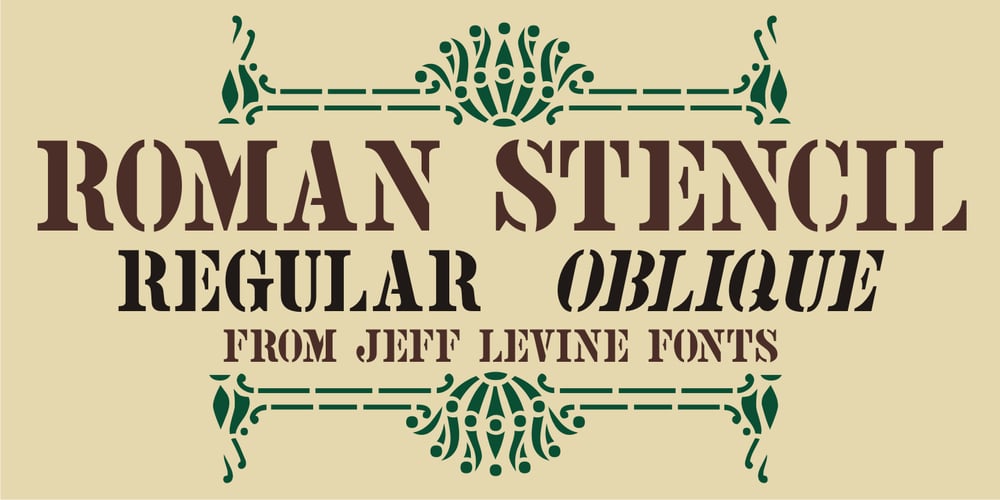
Roman Stencil JNL Font Family was designed by Jeff Levine and published by Jeff Levine. Roman Stencil JNL contains 2 styles and family package options. Roman Stencil JNL is a condensed version of the classic Roman typeface found on many vintage hand-punched brass stencils made for packing and shipping merchandise. This digital interpretation is available in both regular and oblique styles.